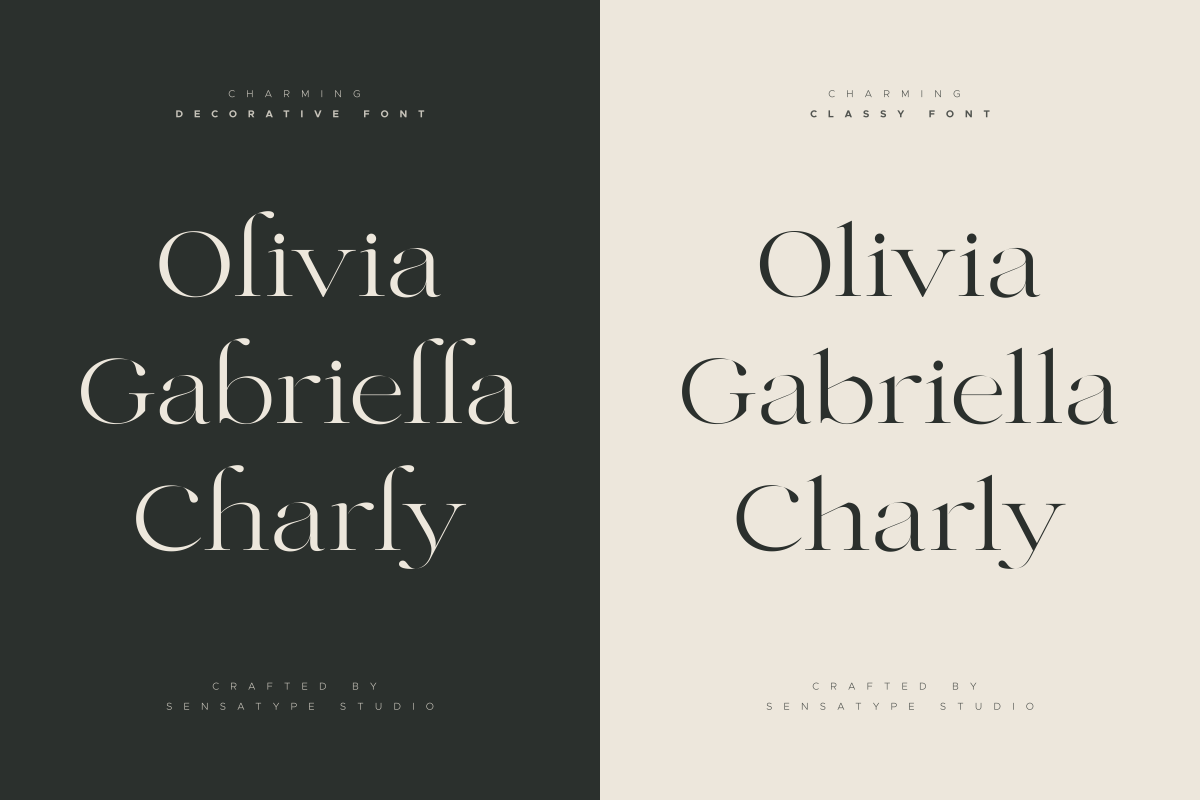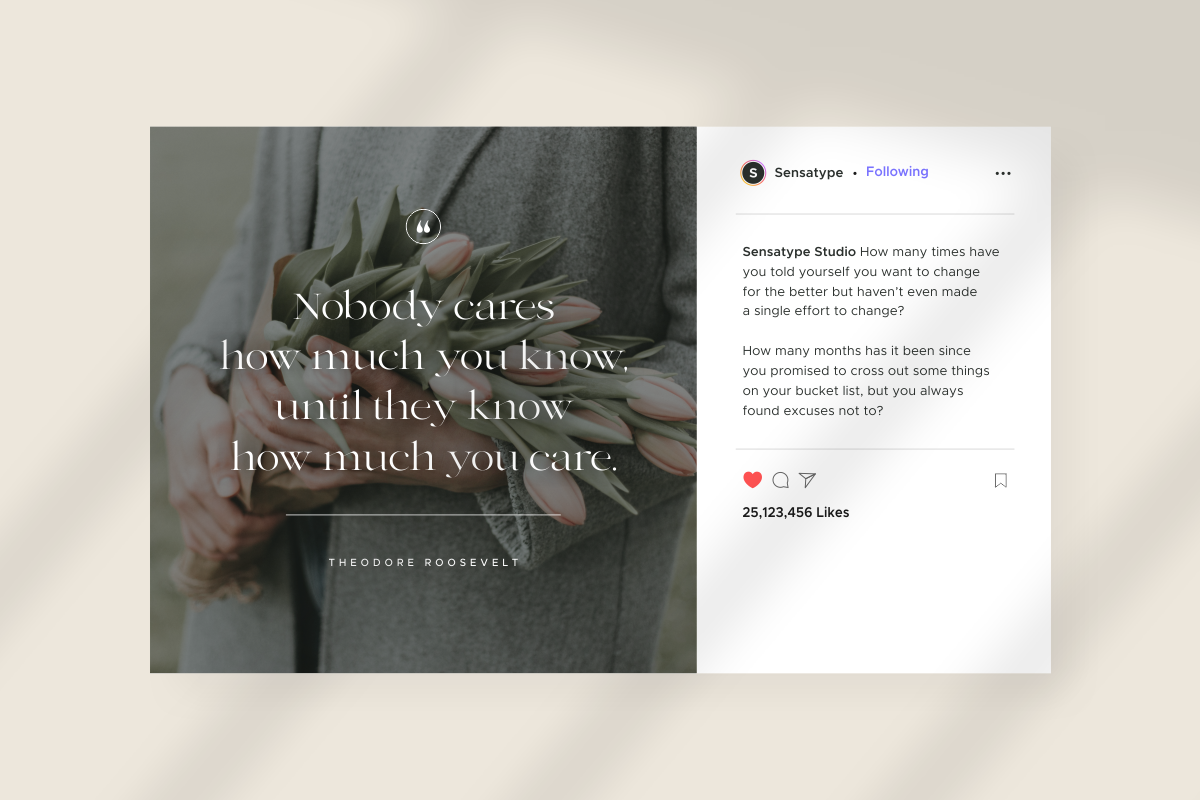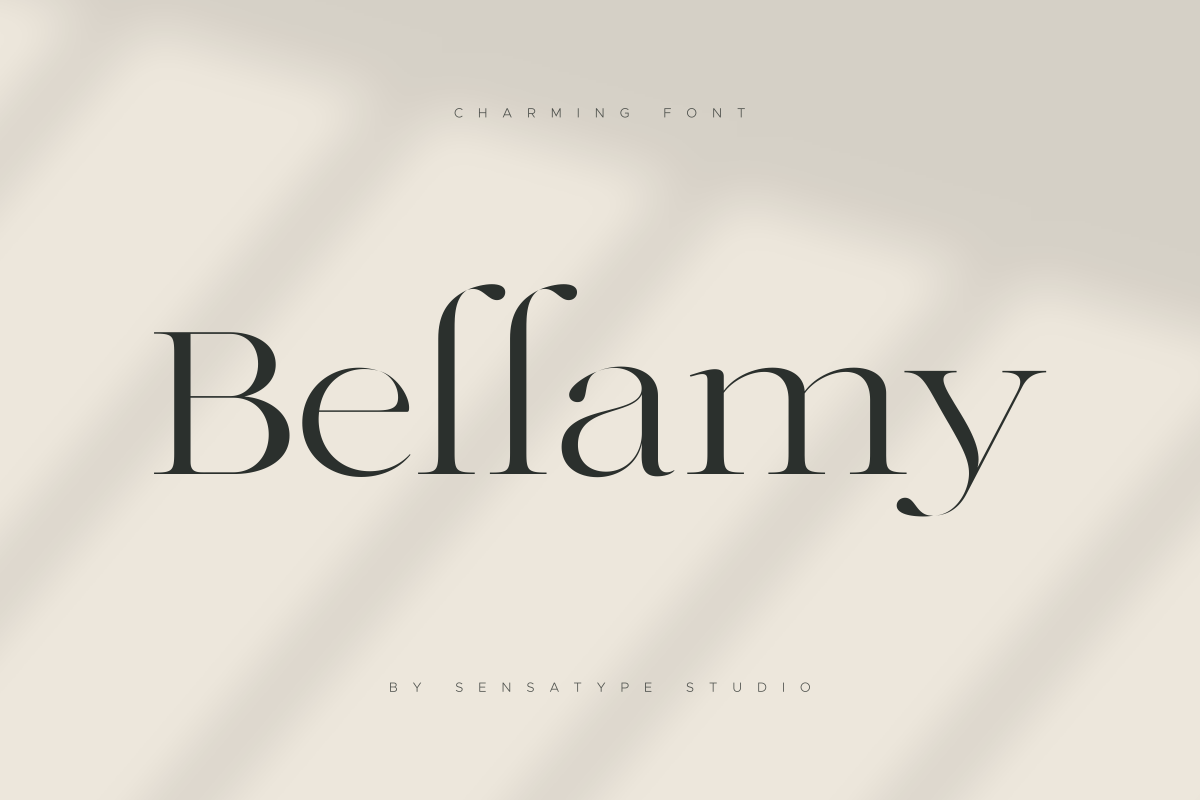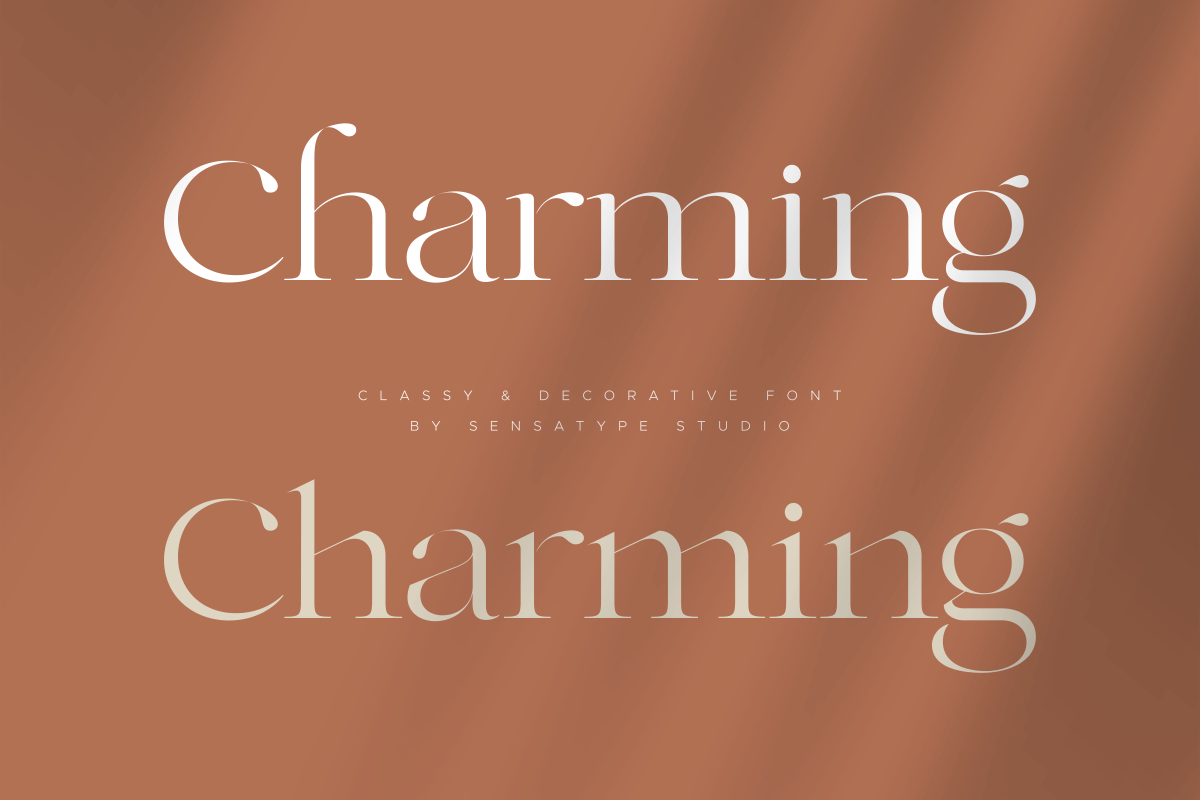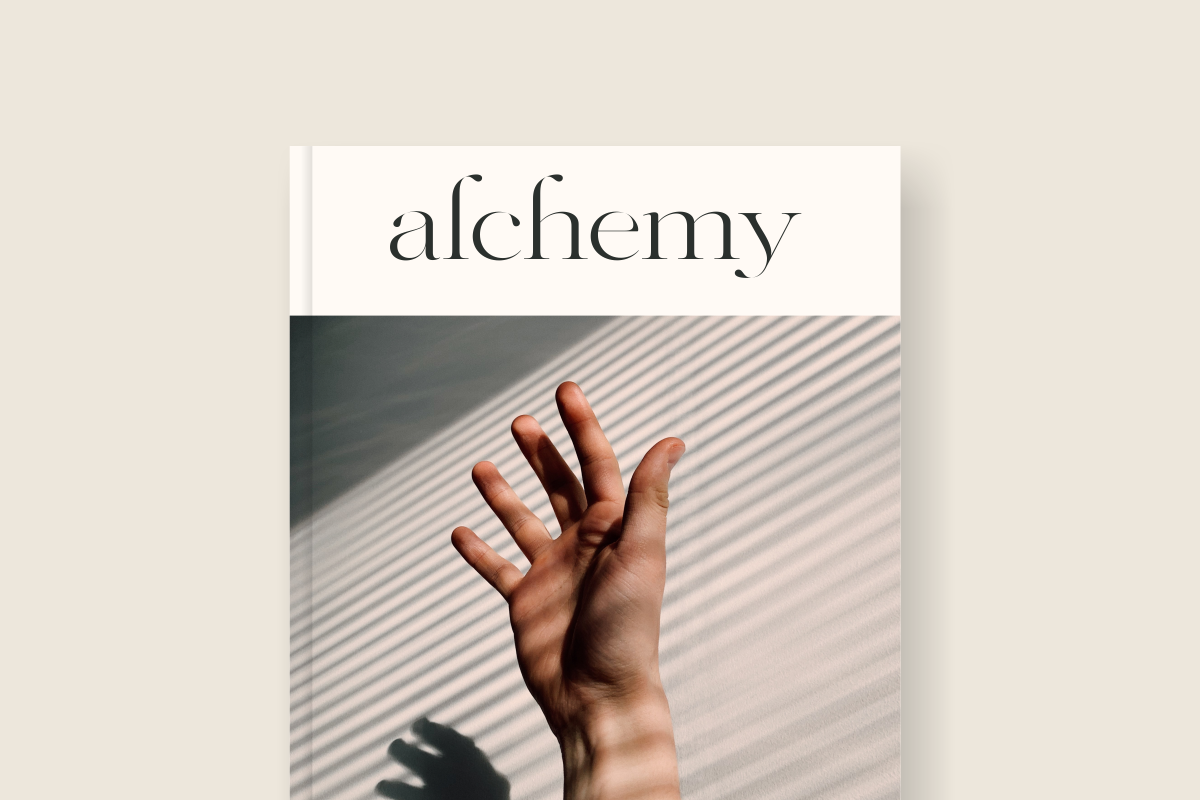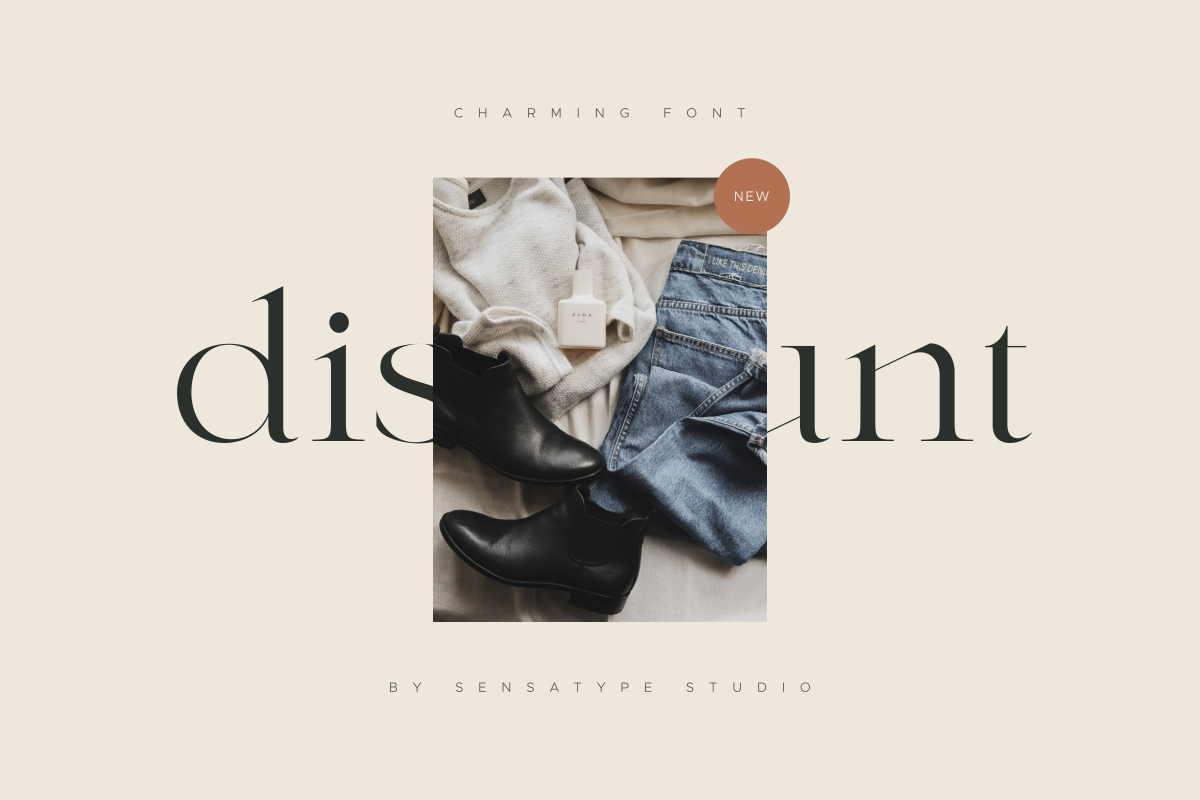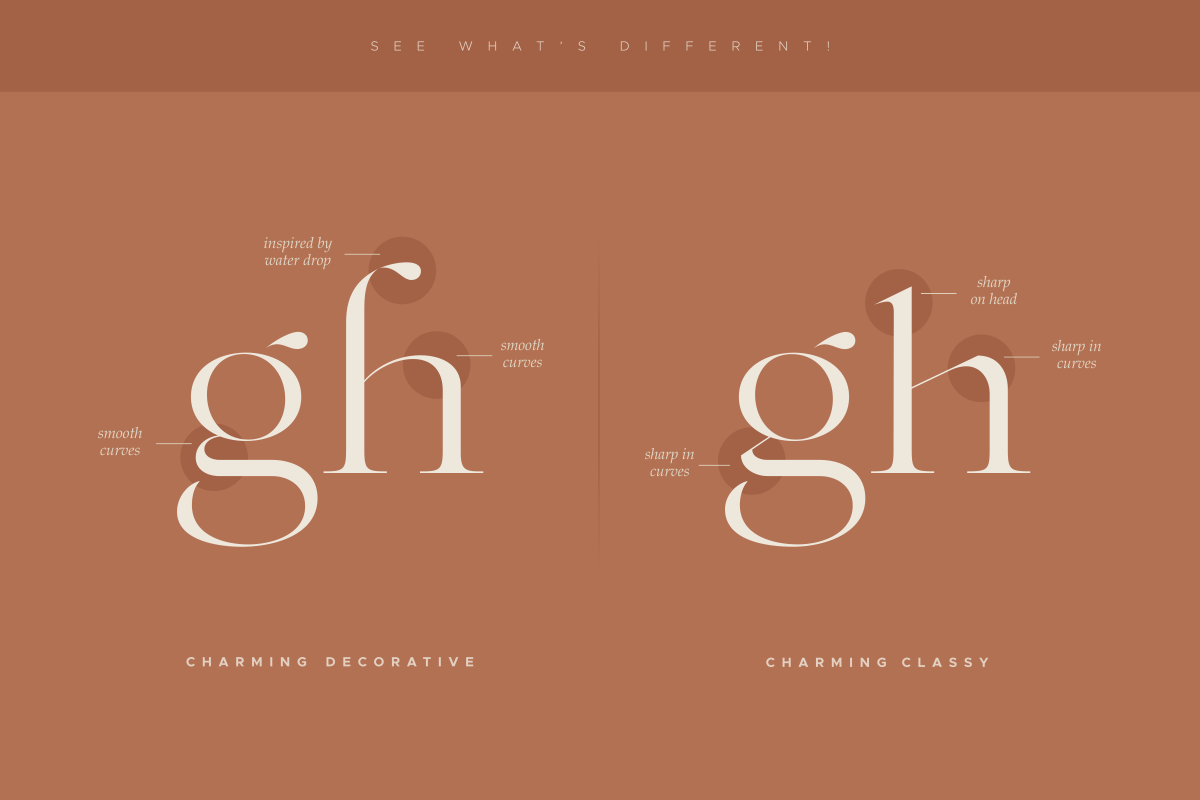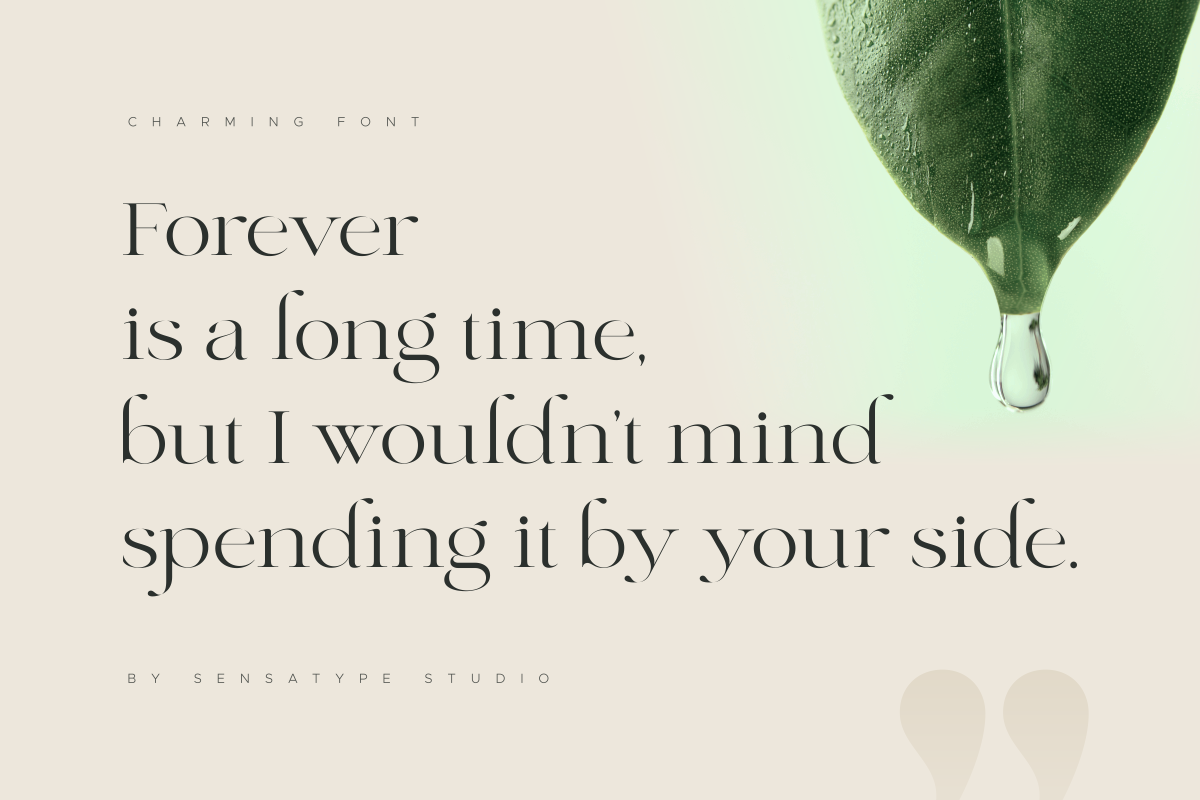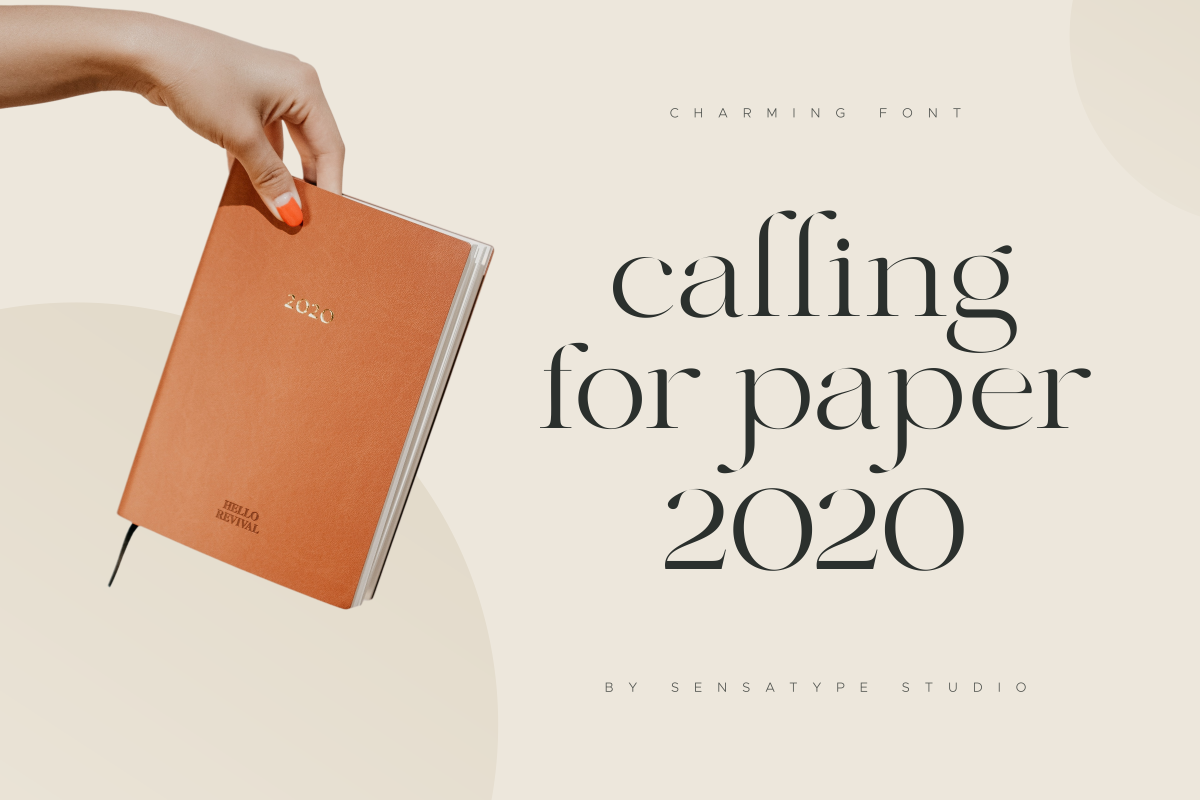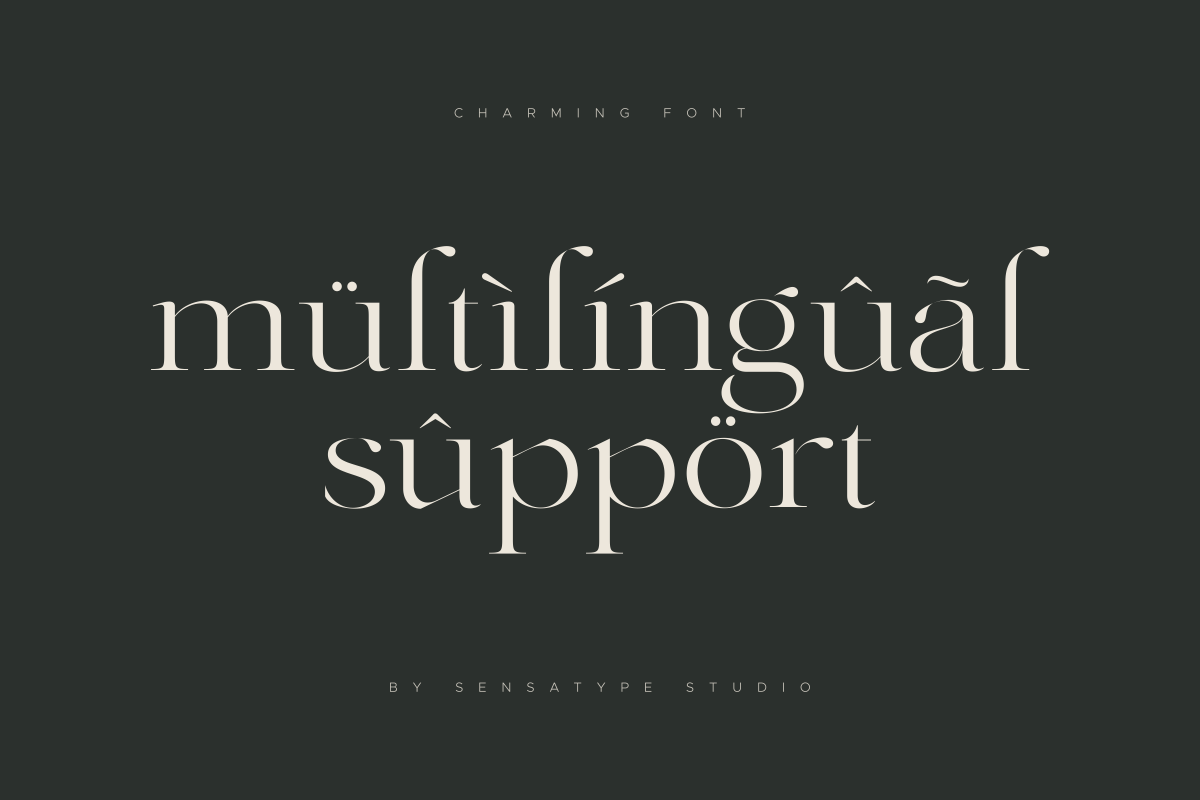
Charming - Classy & Decorative Font
Charming is a classy font and decorative font for brand and logo design.
Inspired by the name, we try to develop some functional font with classy touch and decorative in one package. Based on our experience as a graphic designer who works for a lot of companies, we often are requested to design any graphics with a classy style and decorative. So, we try to brainstorming and create this font to make the idea is going out. This is perfect for BRANDING and LOGO DESIGN. You will get classy, elegant, and certainly unique logos with this font.
Charming font is also included full set of:
- uppercase and lowercase letters
- multilingual symbols
- numerals
- punctuation